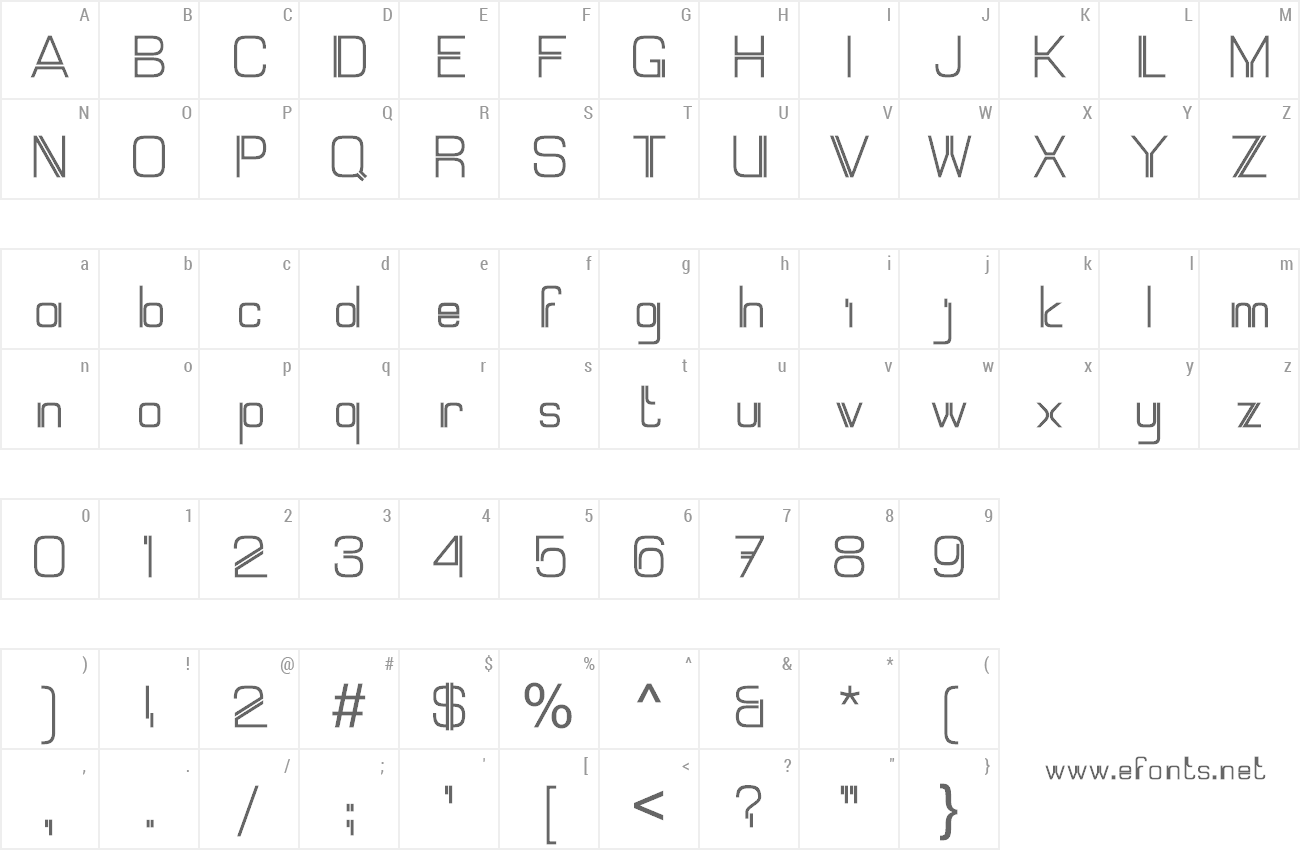
| Font name: | Mallary |
| Author: | Toto |
| Note by Toto | |
| Based on Mallary from page 43 of Dan X. Solo's Moderne Alphabets. I did this font because I like how the letters in the uppercase look. I cannot say the same for the lowercase but perhaps someone would. :) |